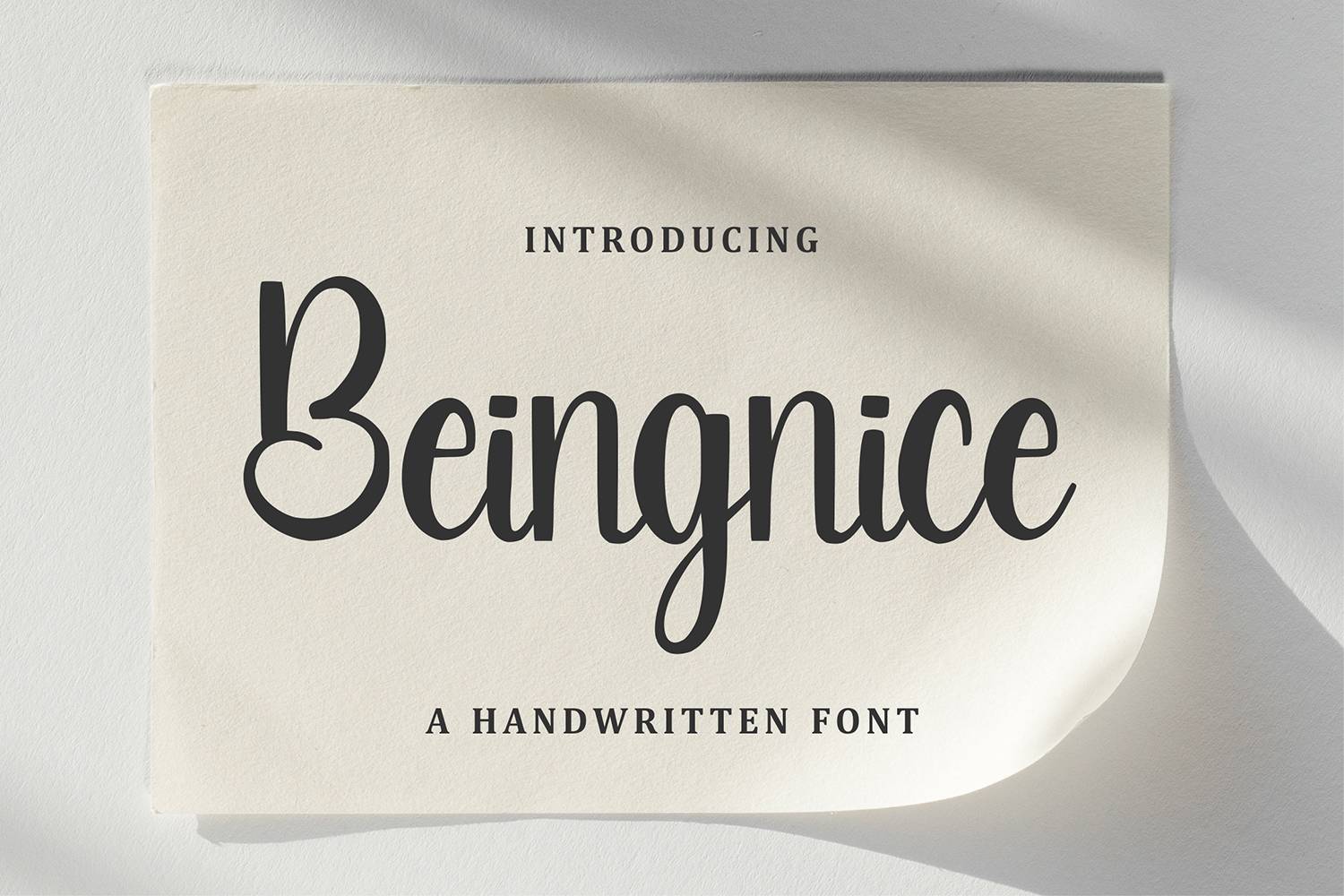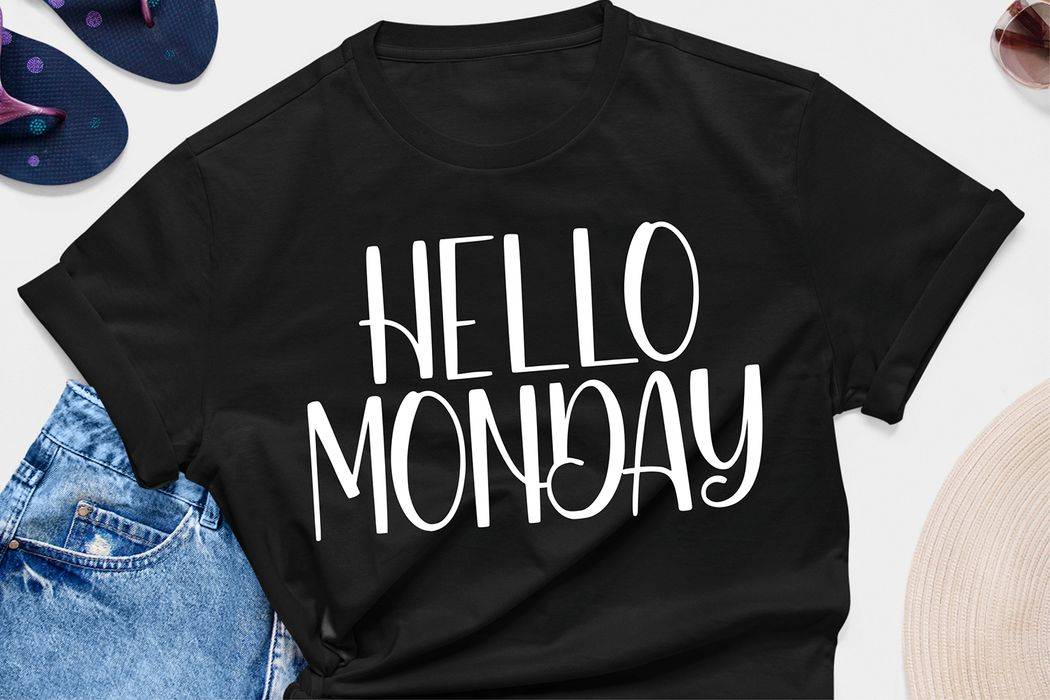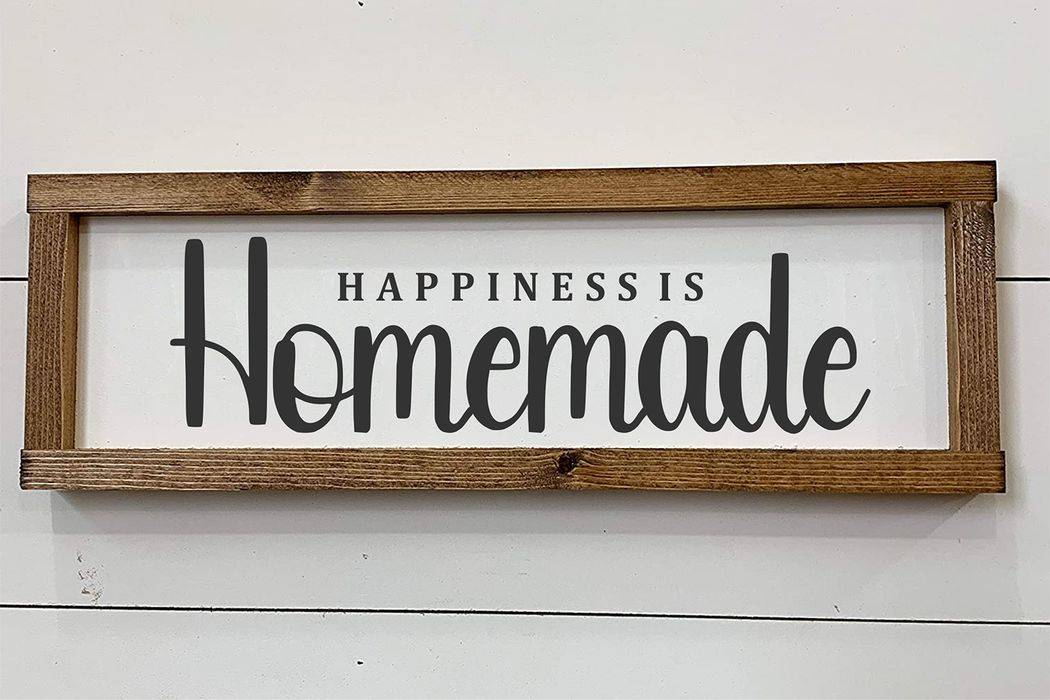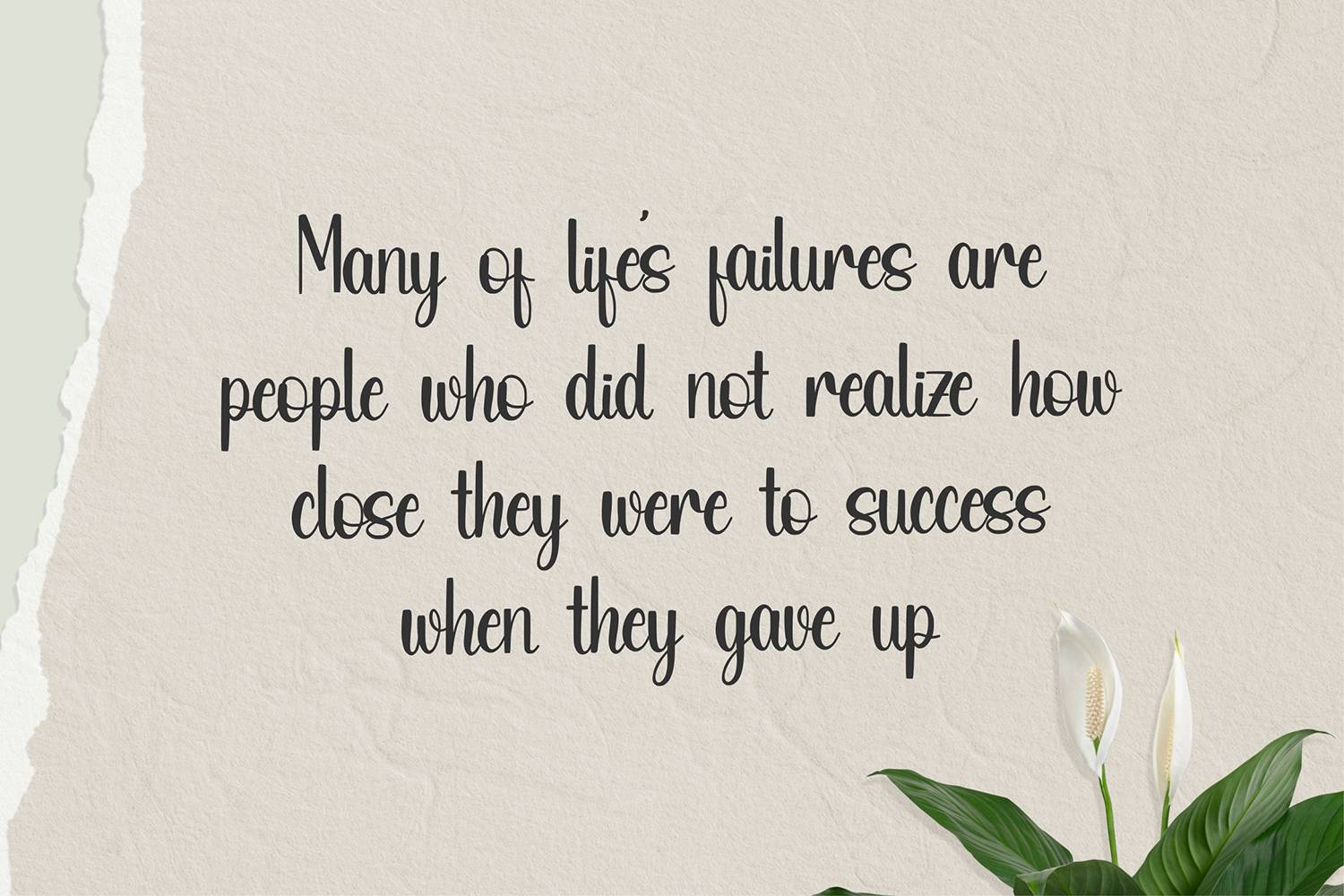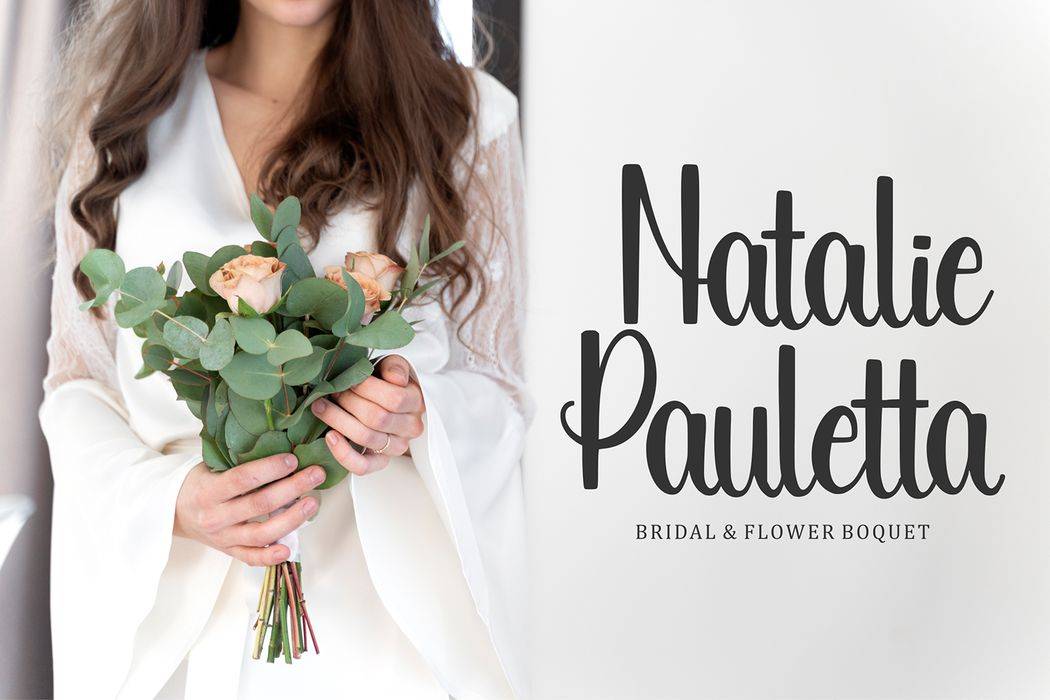
Beingnice is a whimsical and playful sans serif font with a hand-drawn feel, featuring tall, narrow letterforms and lively, curl-accented details that add charm and personality. Its lightweight strokes and slightly condensed width make it ideal for creative, informal designs such as invitations, greeting cards, or branding that seeks a friendly, approachable vibe. This font works best in headlines or decorative text where its unique, casual style can shine and engage viewers.
Beingnice Font
About Beingnice Font